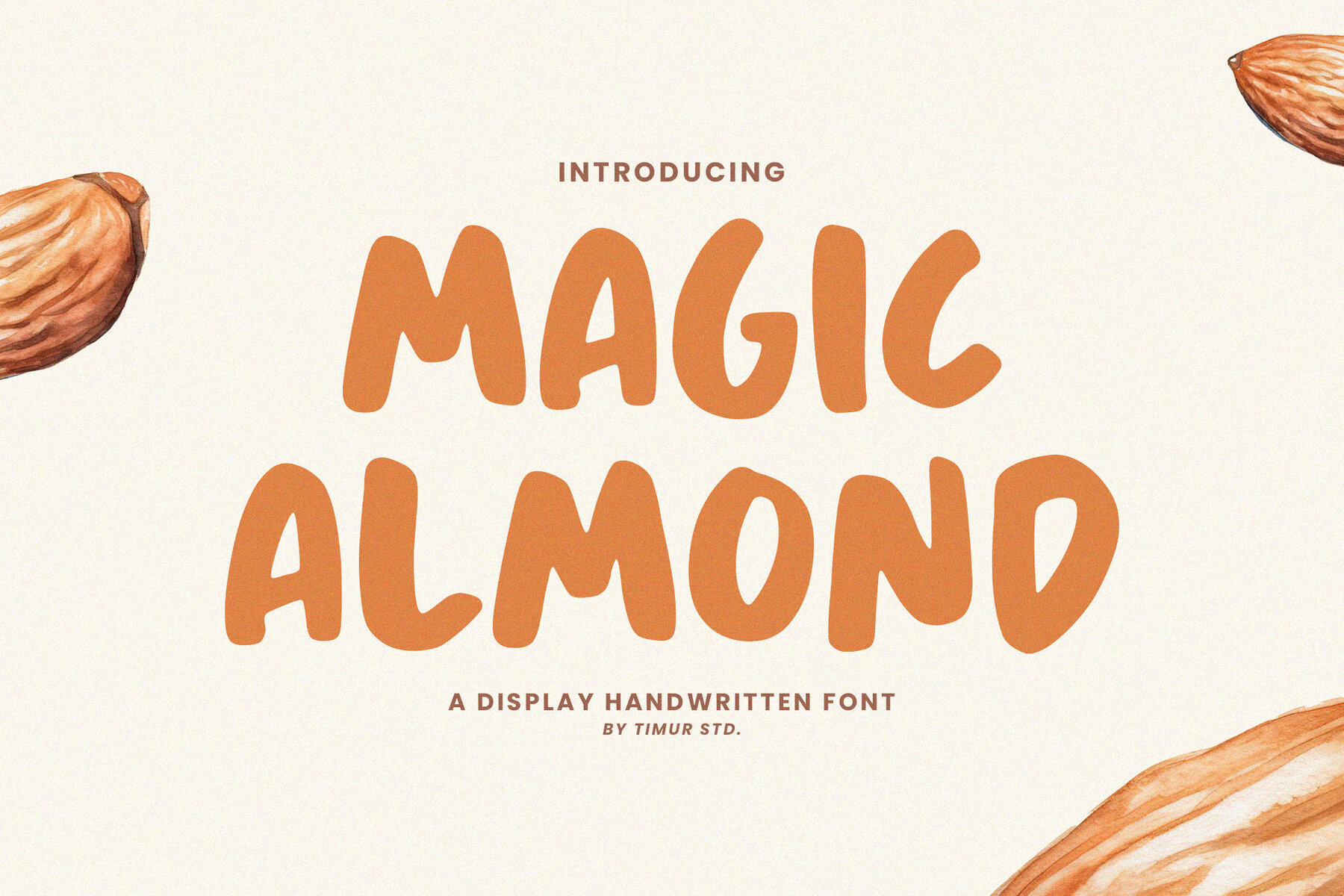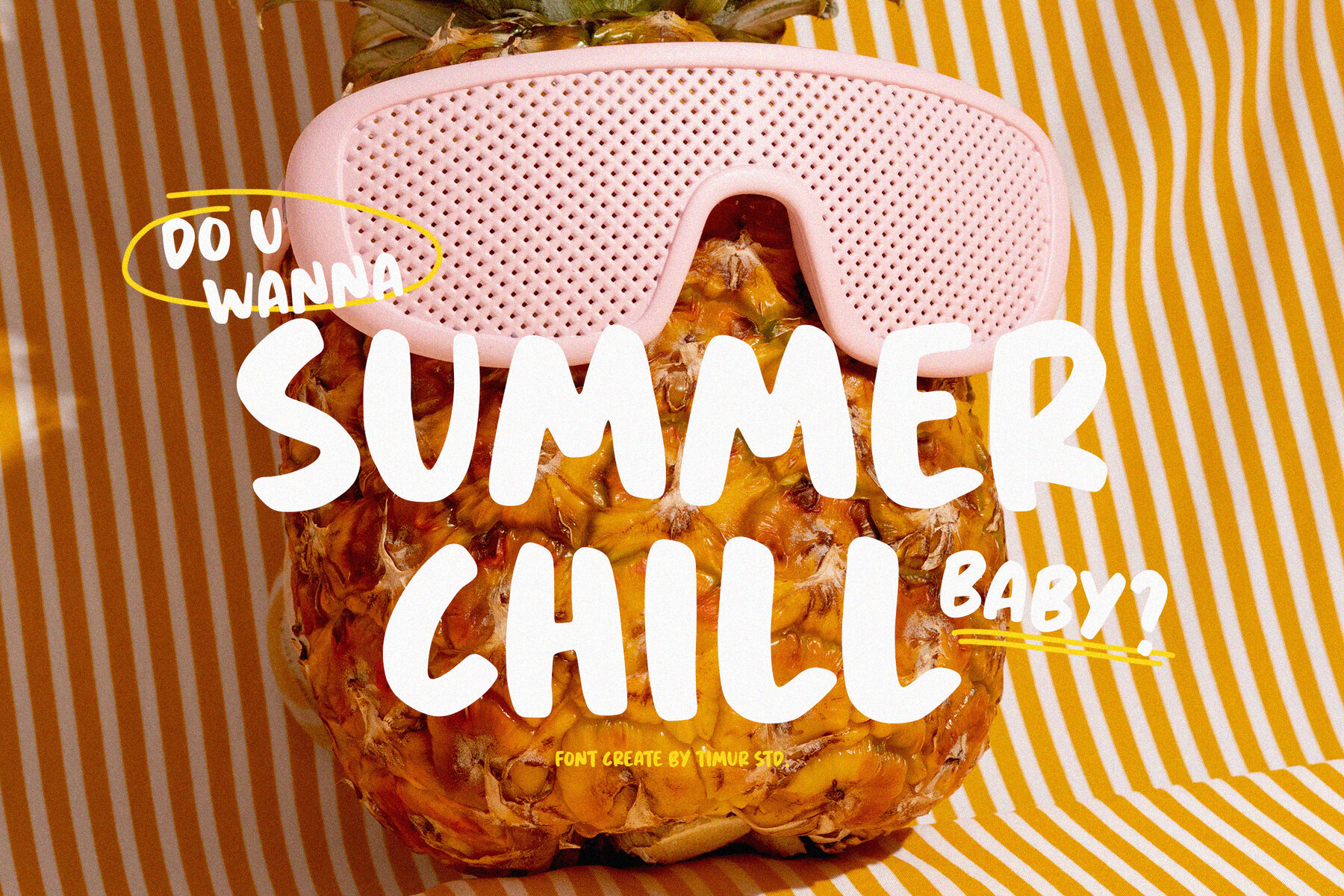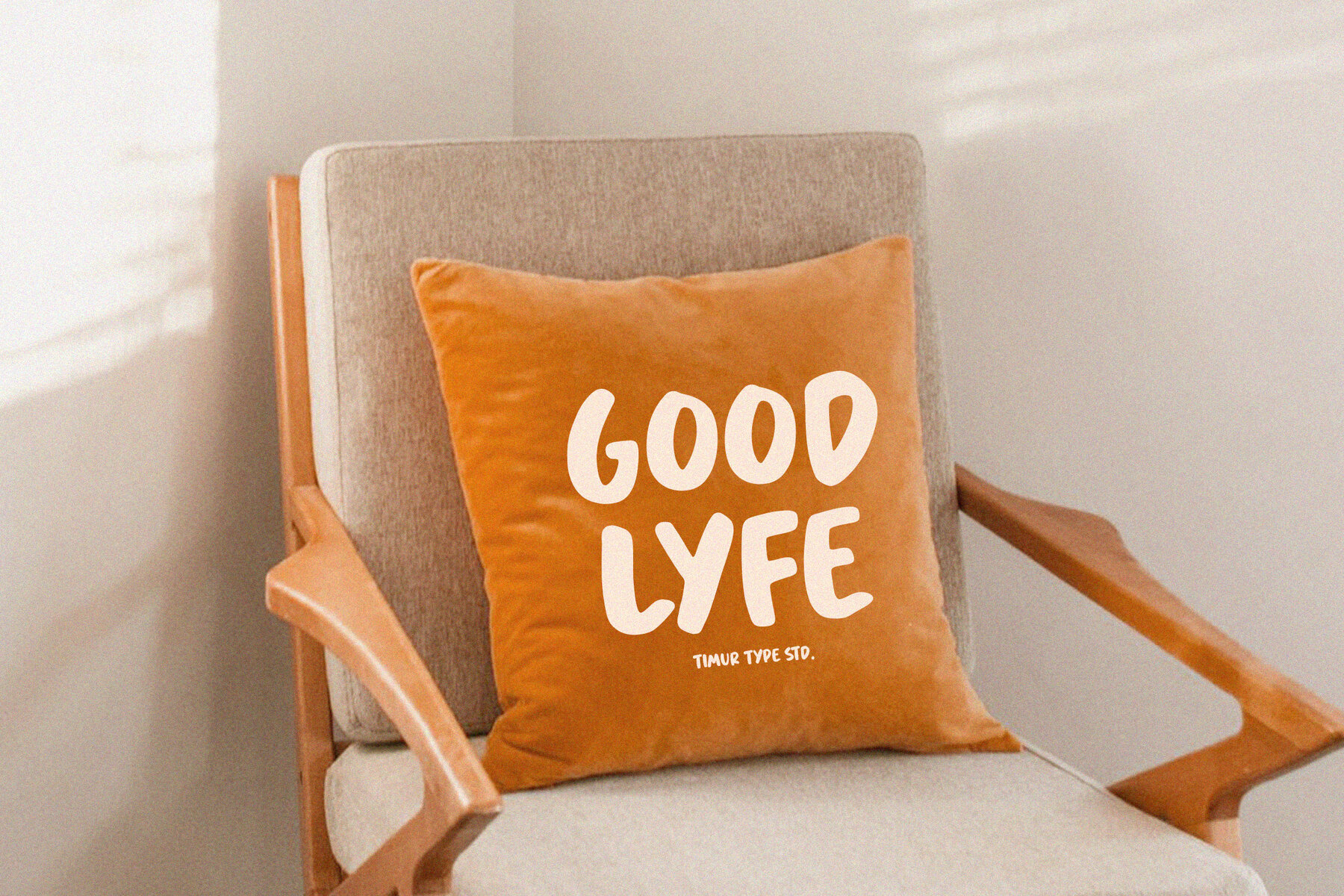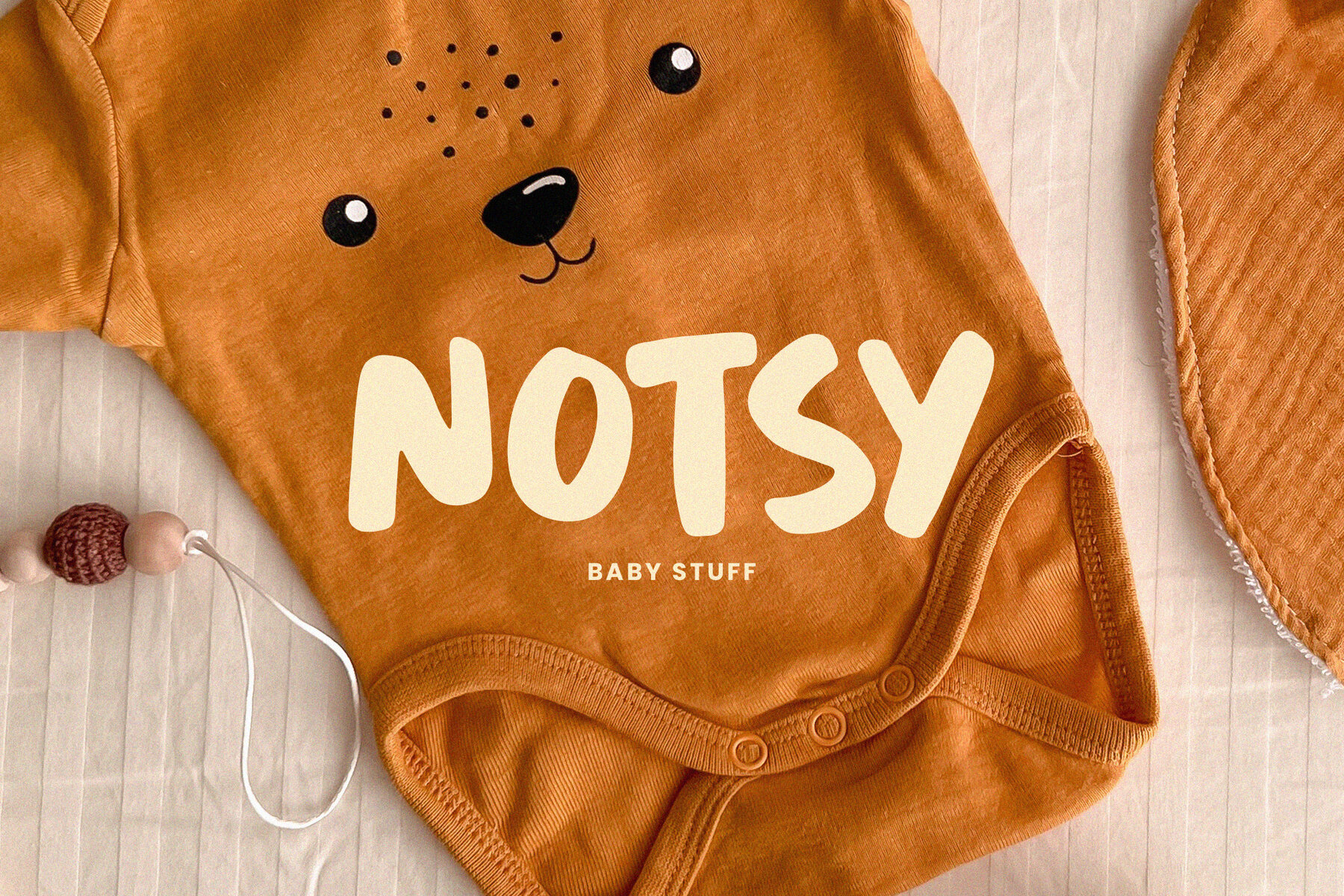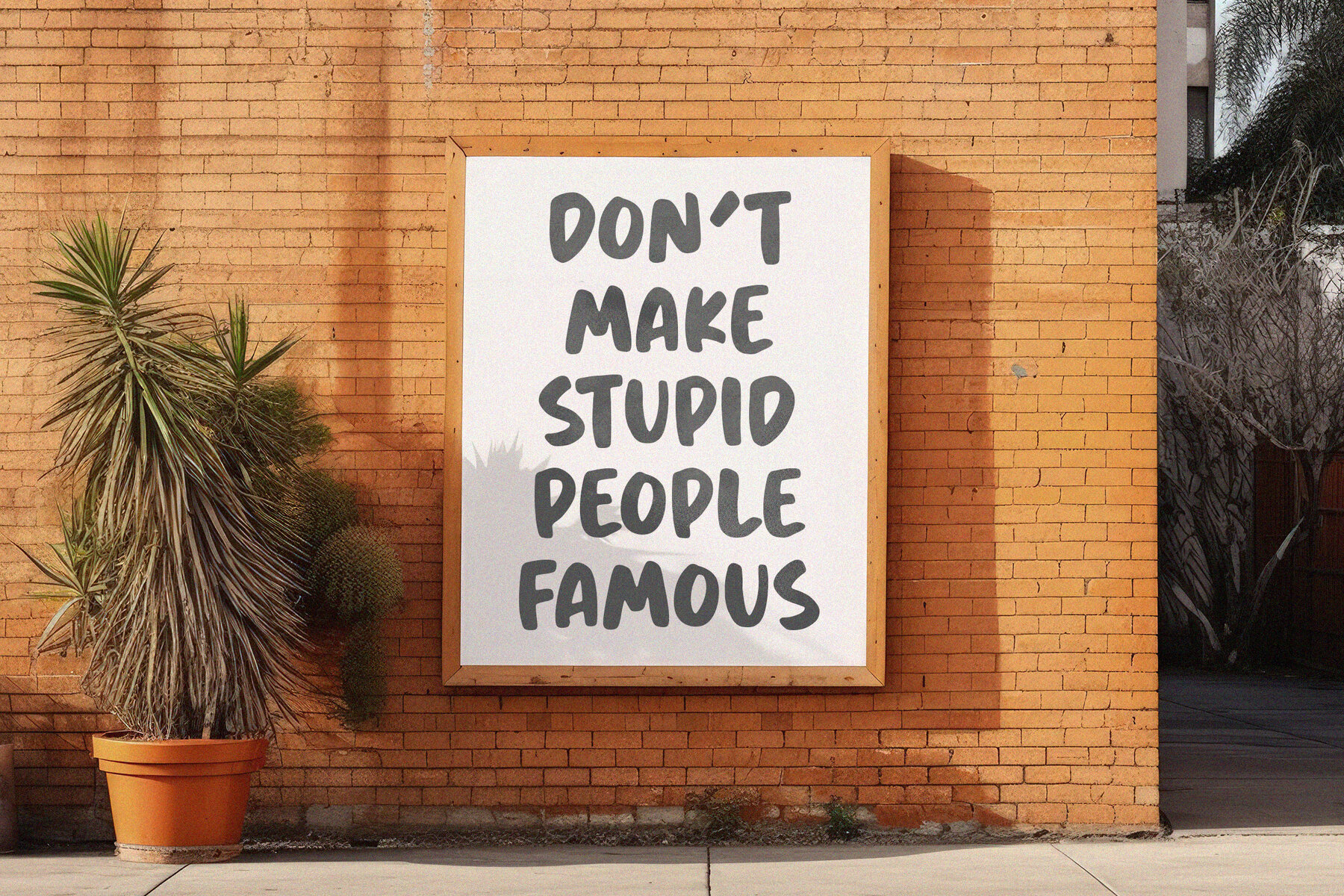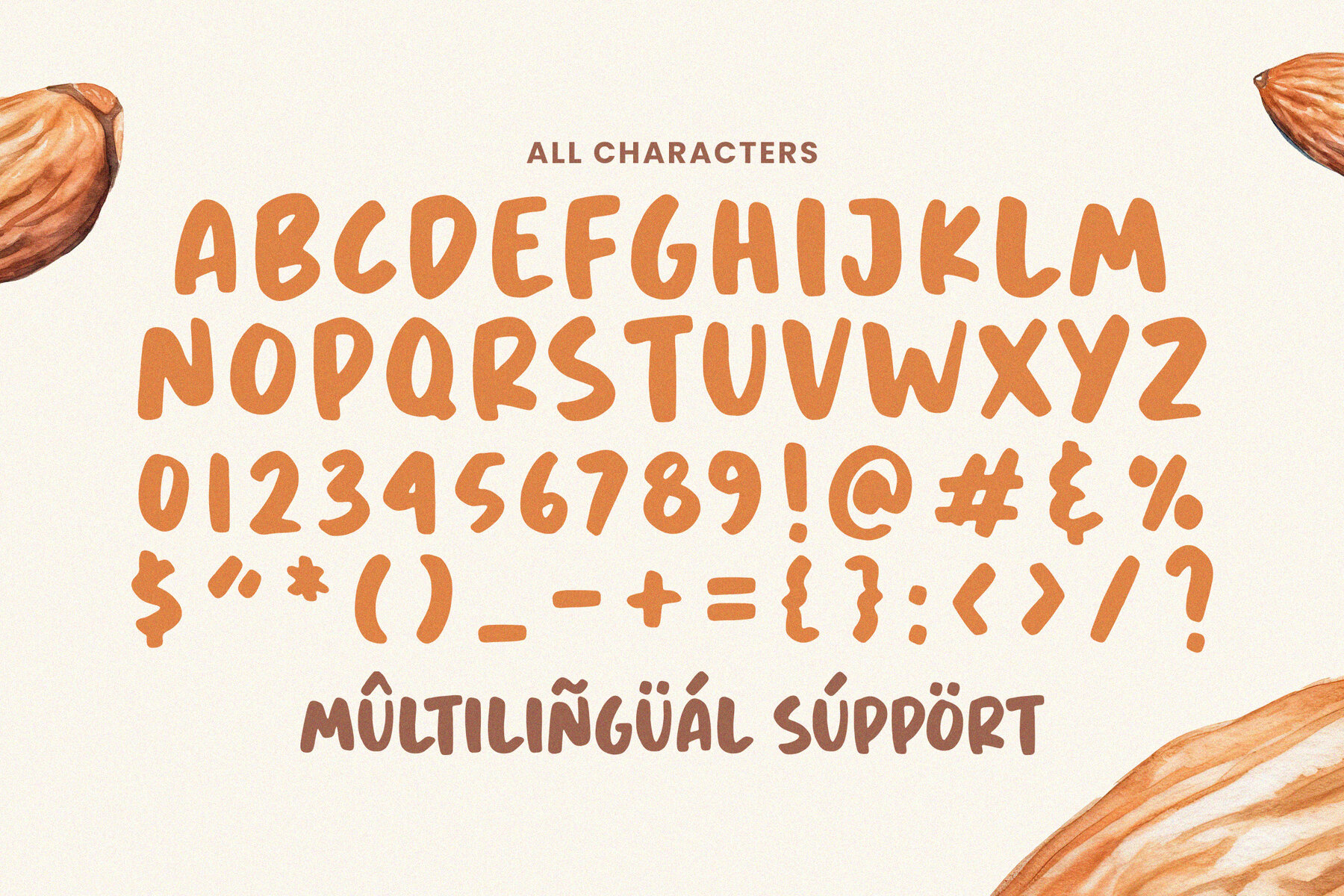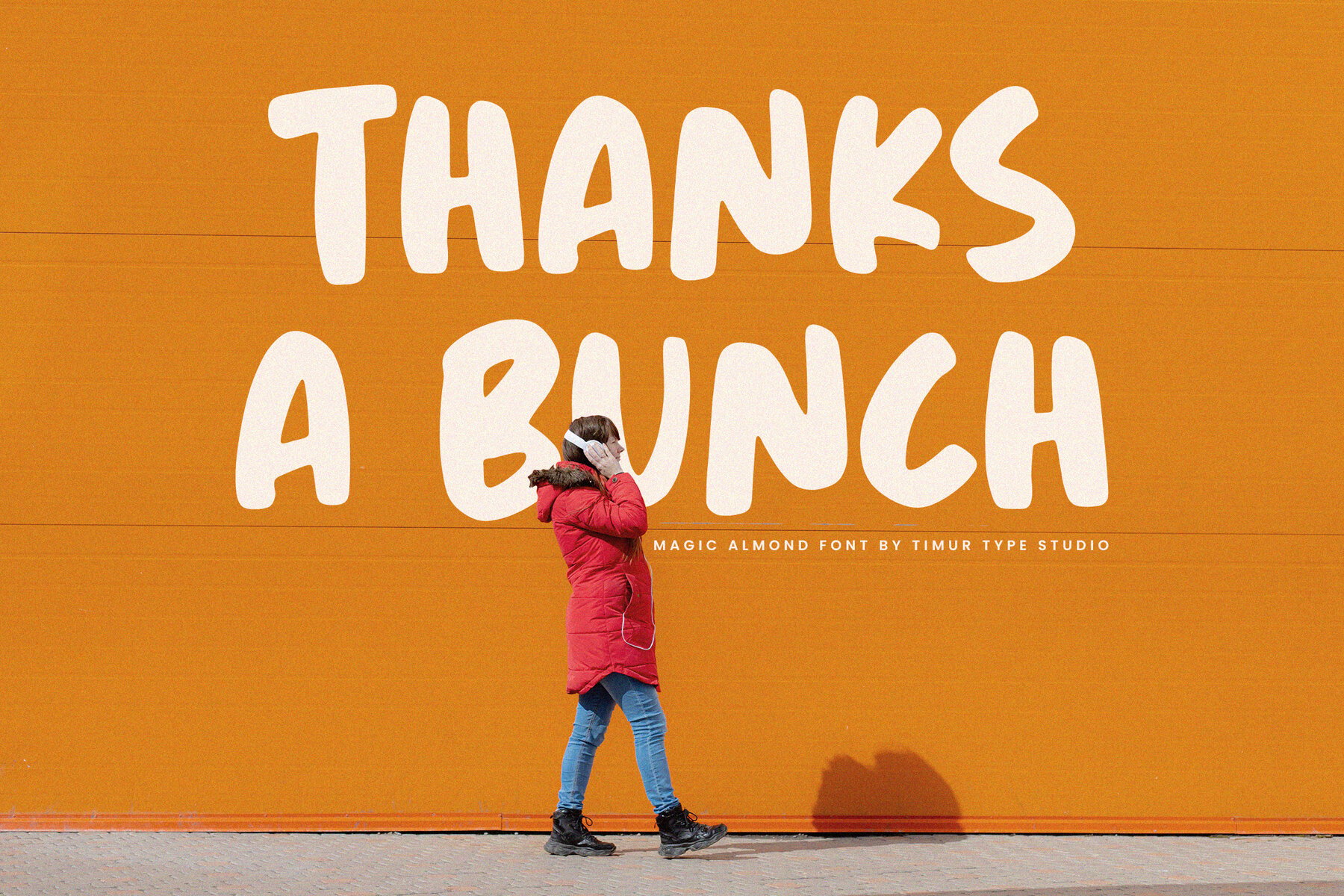
Magic Almond Font
Magic Almond
Magic Almond is a whimsical handwritten font that beautifully melds charm with elegance. Its fluid strokes and playful curves capture a sense of personal touch and creativity, making it perfect for applications that need a touch of enchantment. Whether used in invitations or greeting cards, this font blends calligraphic grace with an approachable warmth, making it ideal for adding character to your designs.
This font stands out with its unique characters, where each letter is crafted like a piece of art. The artistic flair of Magic Almond makes it a versatile choice that enhances the visual appeal of any project. From personal projects to professional designs, this font provides a magical touch that transforms ordinary text into something captivating.